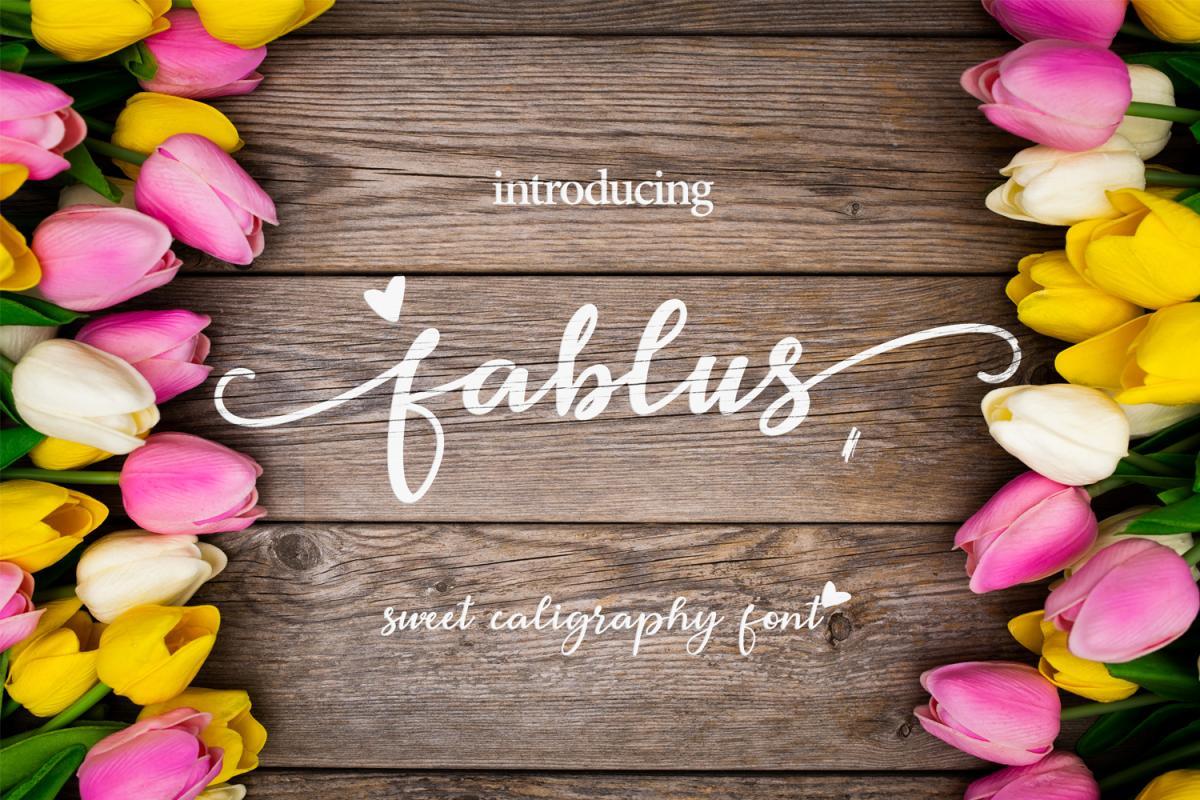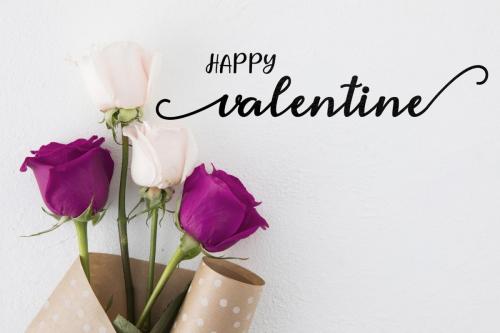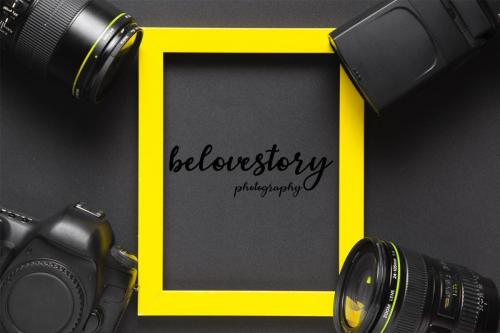
fablus is a beautiful script font. It has a classy, elegant, and modern look which can be used for logos, branding, invitations, stationery, wedding designs, social media posts, and every other design in need of a handwritten touch.